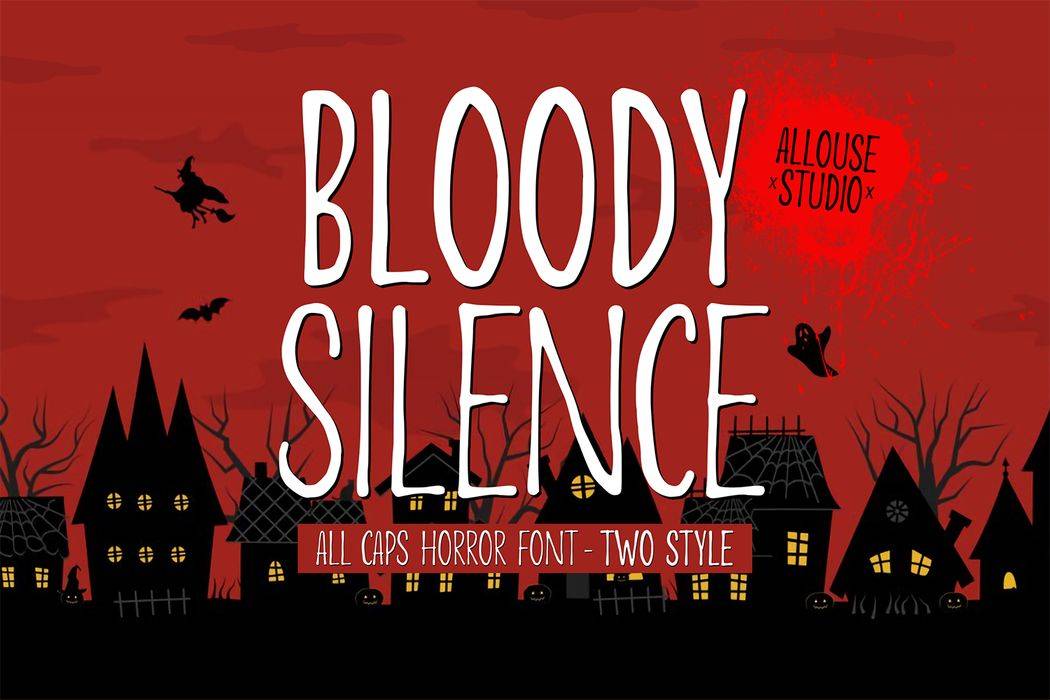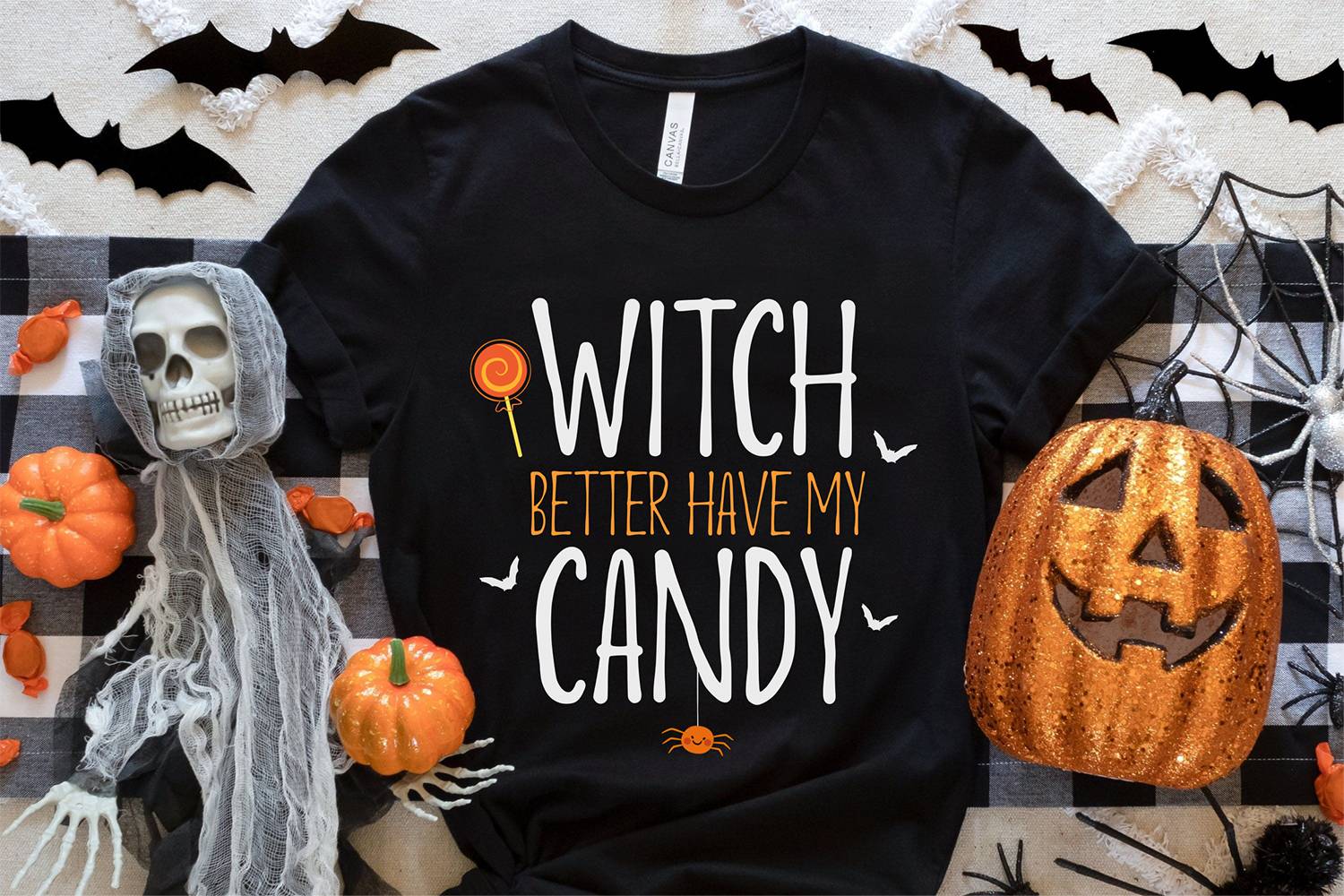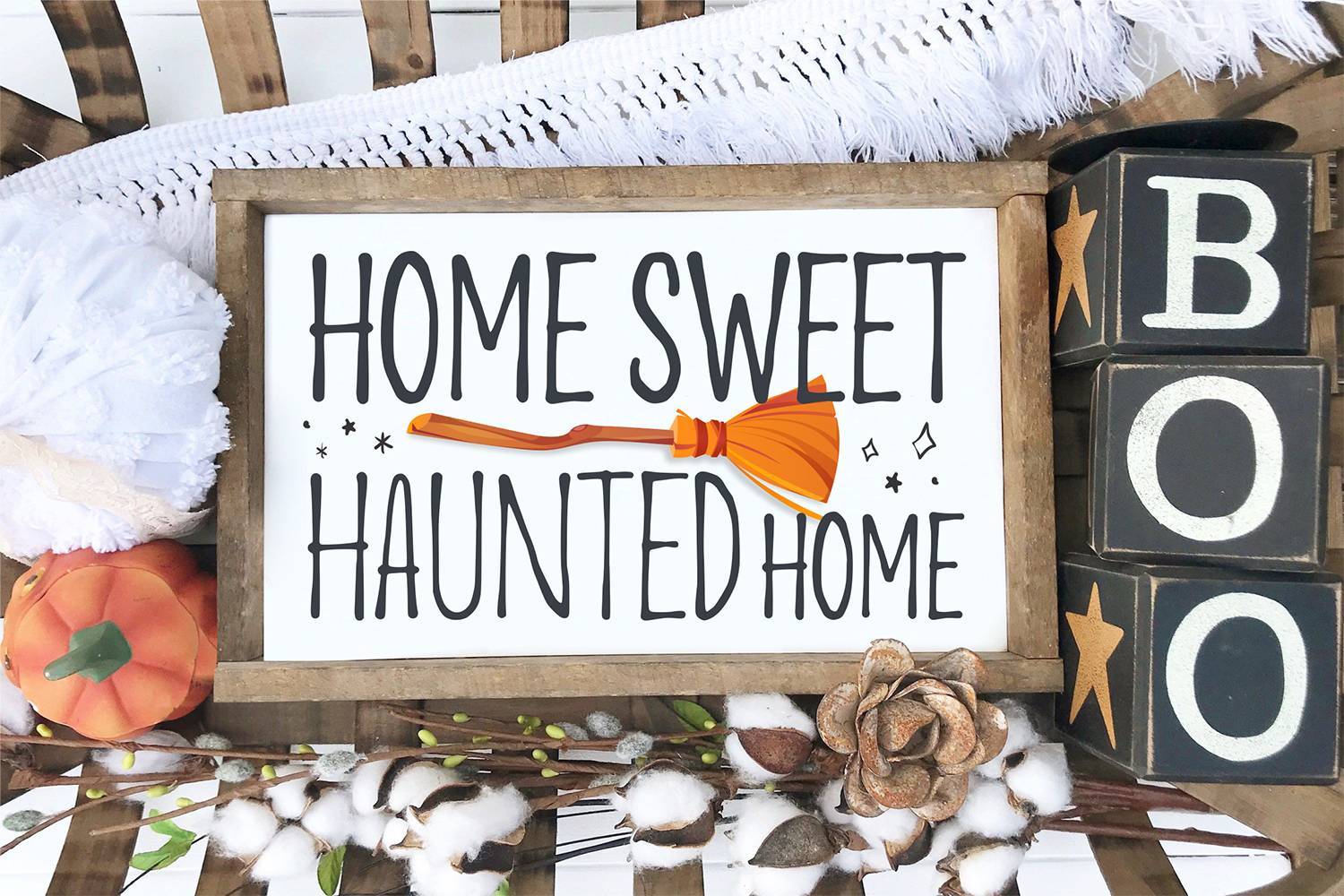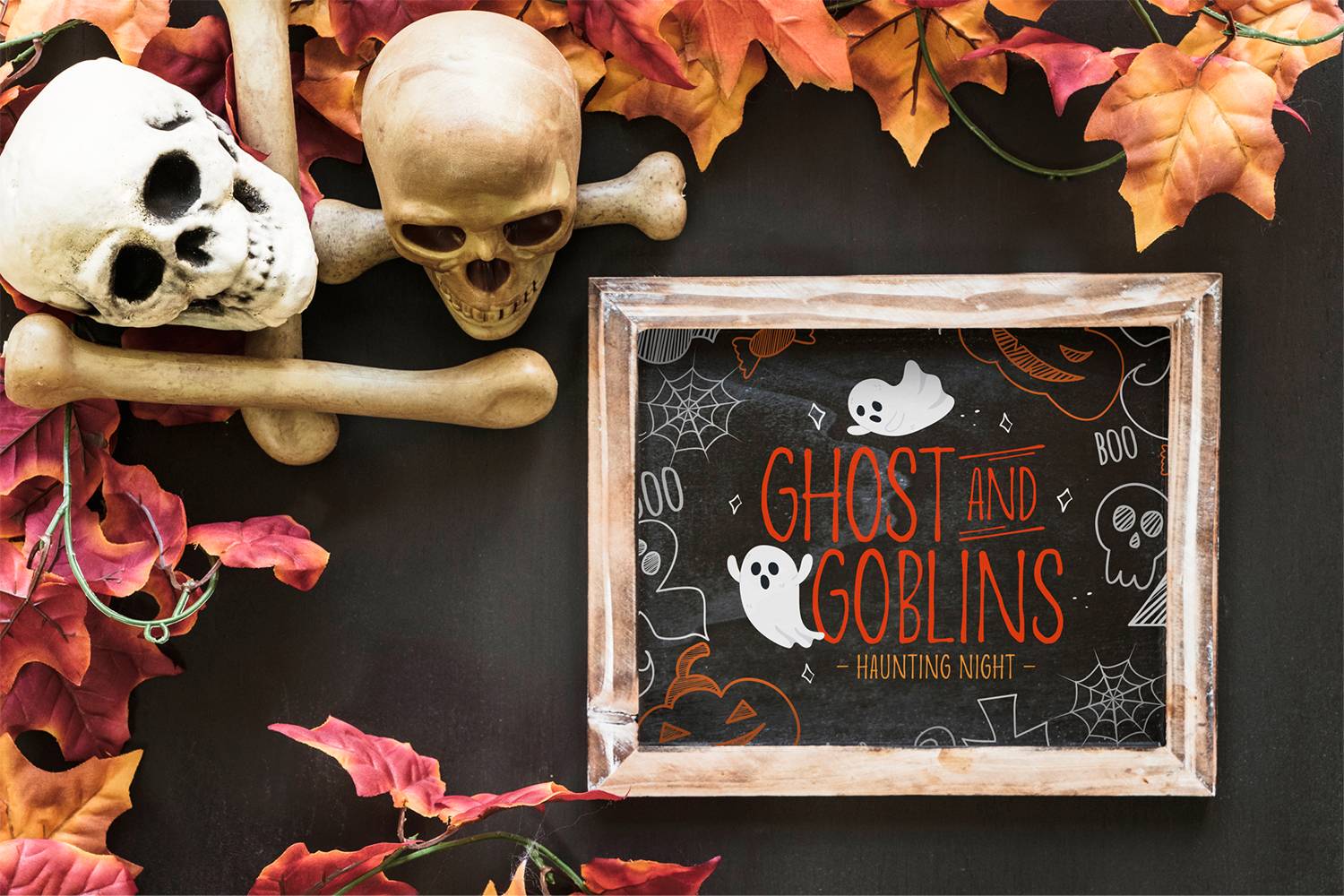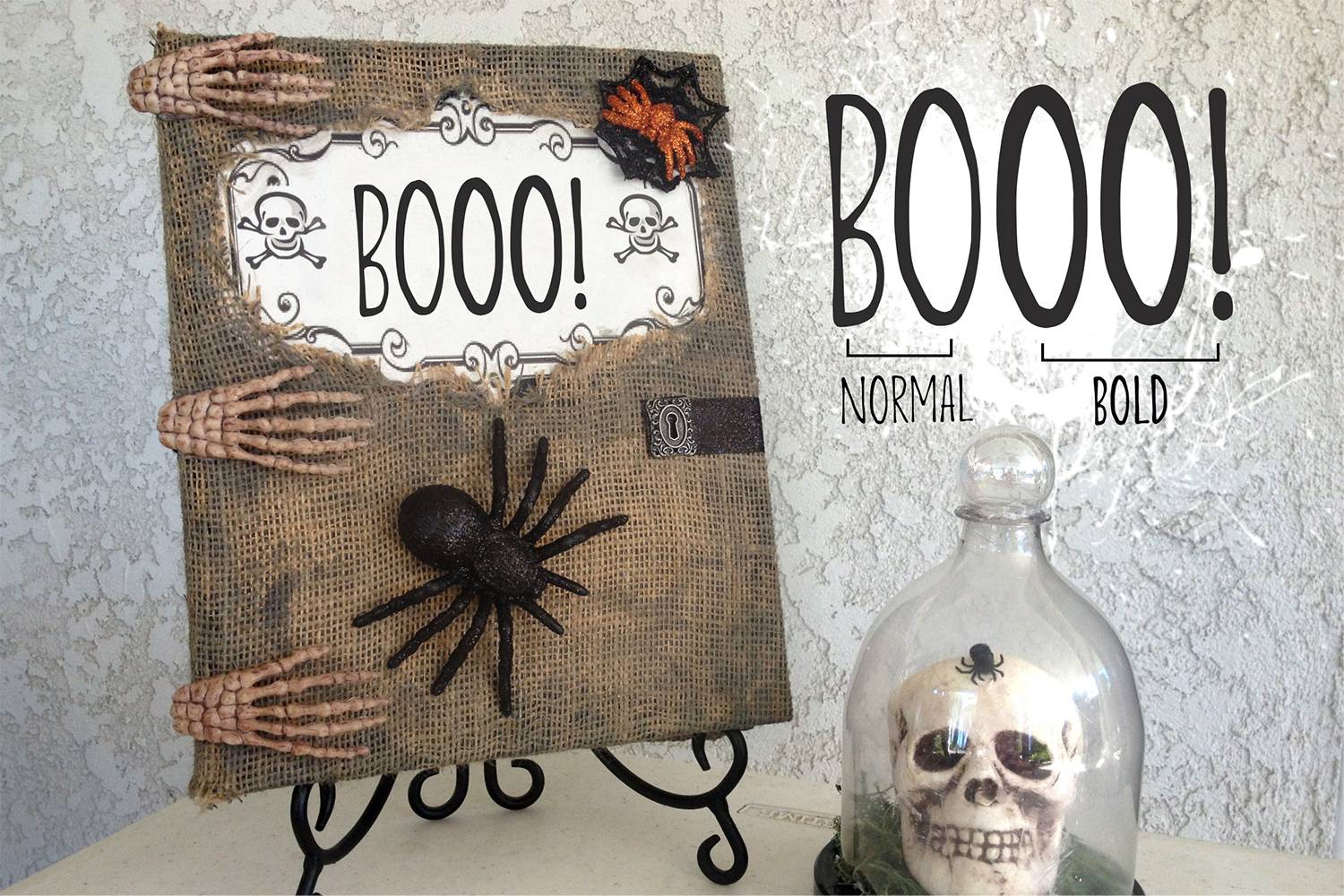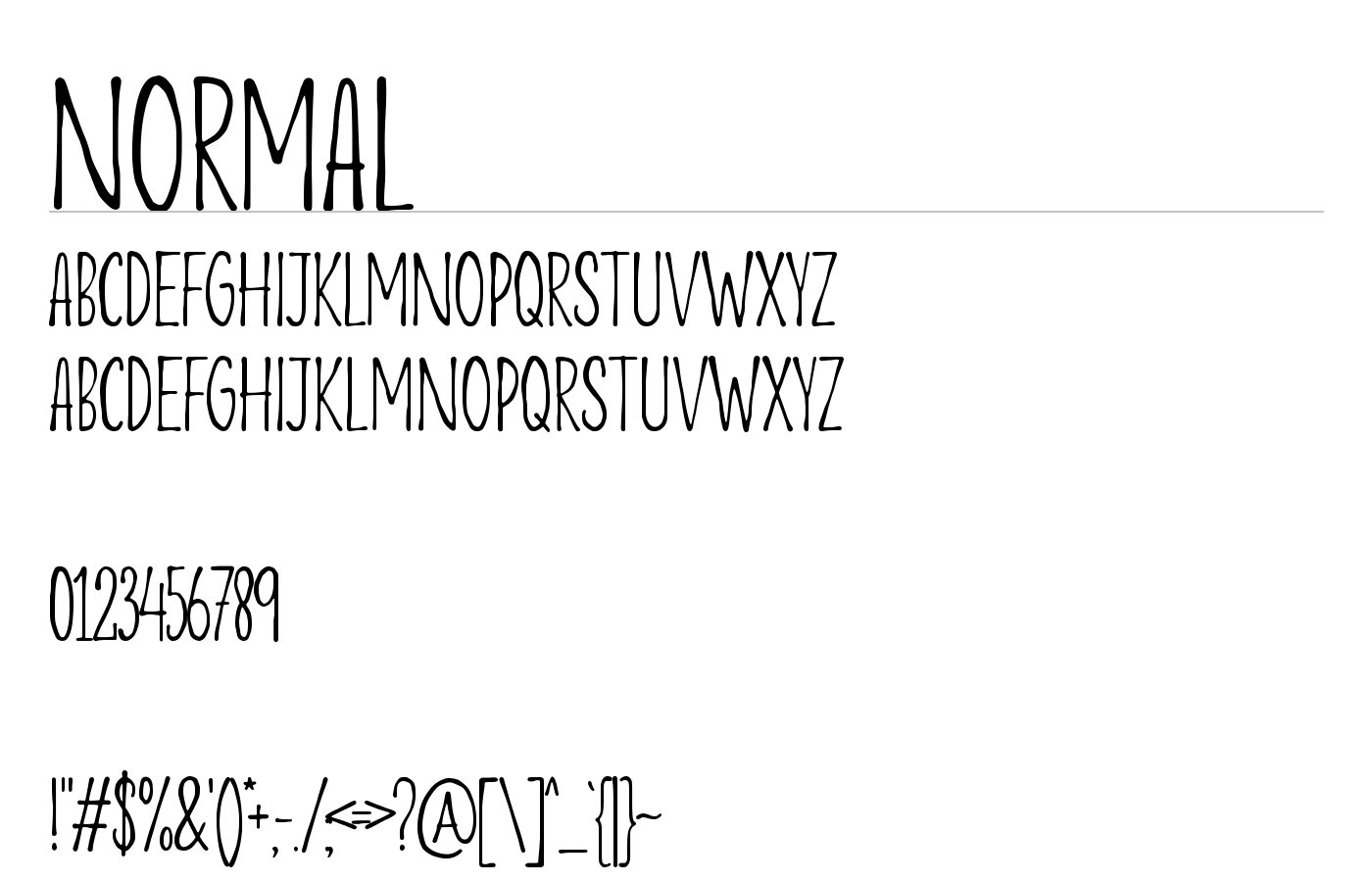
Bloody Silence is a narrow, hand-drawn sans serif font with tall, uneven strokes that give it a quirky, slightly eerie personality. Its thin lines and irregular shapes create a casual, unsettling feel, making it ideal for horror-themed designs, posters, or creative projects that want to convey suspense or mystery with a unique handmade touch.
Bloody Silence Font
About Bloody Silence Font